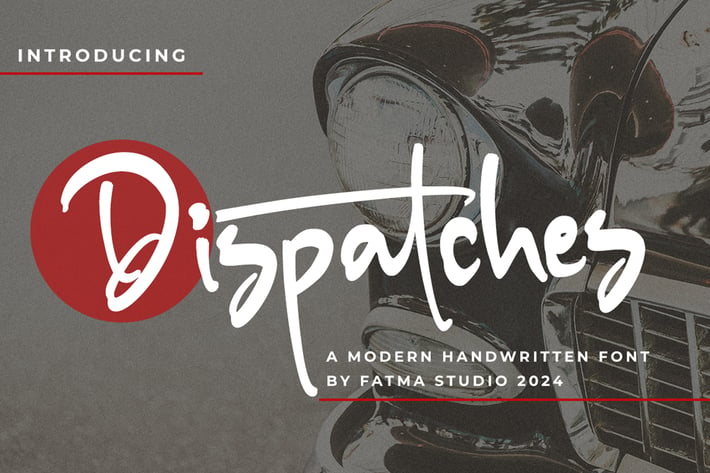
Dispatches - Brush Font
Dispatches is a gorgeous and bold brushed handwritten font, crafted to give your headlines and logotype projects a stylish touch. This font reads as strong, confident, and dynamic and can add tons of nostalgic character to your designs.
Ligatures, Swash, Alternates